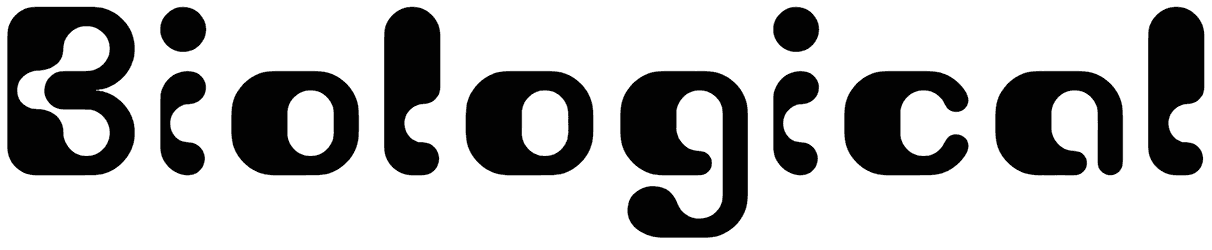
Biological Font
The characters of a sci-fi font, such as Biological, somehow look like pieces of a puzzle and bring a sense of innovation, jauntiness, dynamism, or illusion to your artwork. This Y2K font offers five distinctive styles and incredibly broadens your horizons in the middle of bringing your creative ideas, including the user interface of applications, logos, brochures, flyers, or billboards, to real life.
update lowercase, symbol, punctuation, number, plus adding bold, hollow, inverse, hollow inverse, style